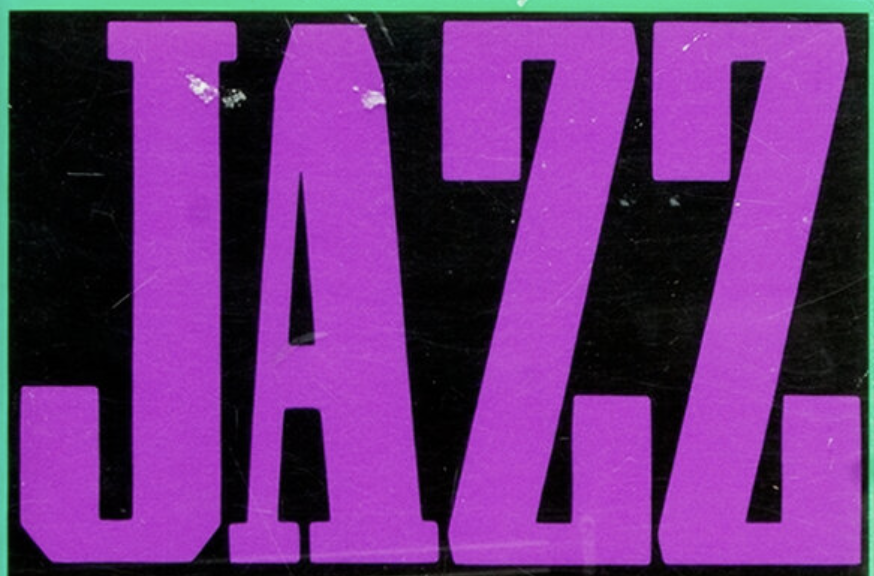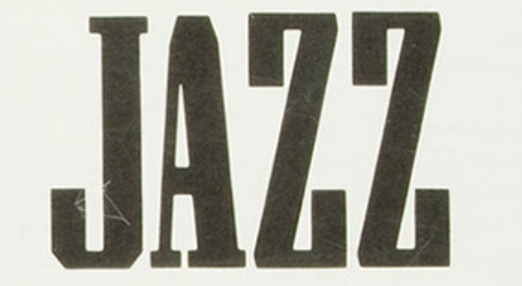
This is a Grecian, a style that originated in wood. Many wood type fonts were converted to phototype in the 1960–70s. (The Morgan Press collection at Headliners is one such example.) which is perhaps how it ended up on this poster. Two digital options – besides the Dick Pape fonts that Sonikku mentions – are Solotype’s Grecian and Wooden Type Fonts’ Grecian.
Surprisingly it seems to have existed as some full font then. It was recreated/digitized in 2013/2014 https://luc.devroye.org/fonts-74407.html
It's AWT Nebraska Grecian Xtra Condensed in this list